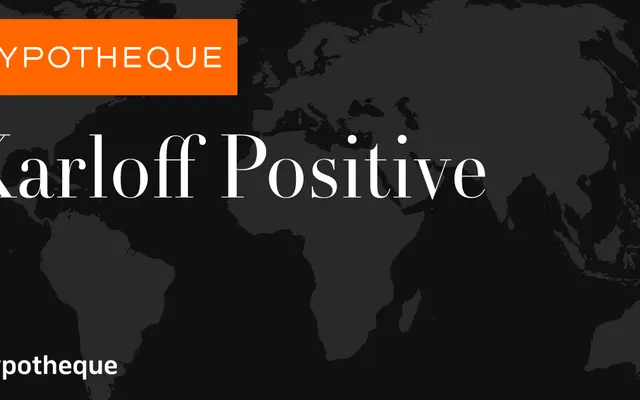
Karloff Positive
Part of a three-family system by Typotheque that pairs high-contrast serif design with reversed-contrast and neutral counterparts across three weights.
Karloff Positive is the high-contrast serif arm of a systematic type family that includes Karloff Negative and Karloff Neutral, each exploring a different relationship between stroke weight and optical expectation. Three weights run from Regular to Bold, each with an italic, giving designers a structured palette for working across the full spectrum of contrast. The family is named after a series of cities, suggesting broad multilingual ambition beyond its current Latin coverage.
Karloff Positive is part of a system contrasting high stroke contrast (Positive) with reversed contrast (Negative) and neutral stroke contrast, placing it firmly in the contrasted serif tradition with deliberate exploration of optical and structural opposites.